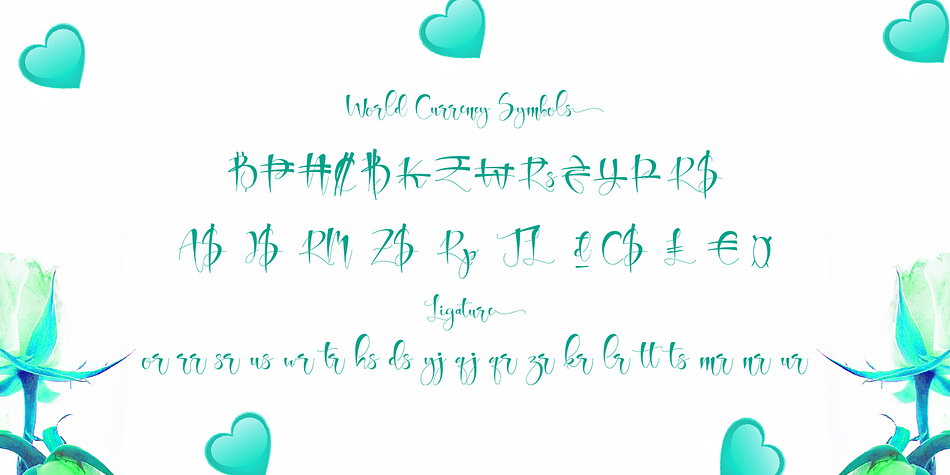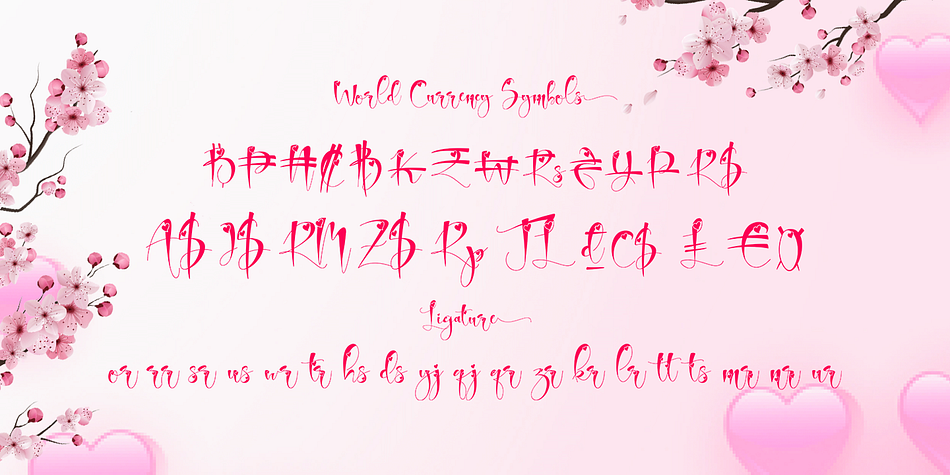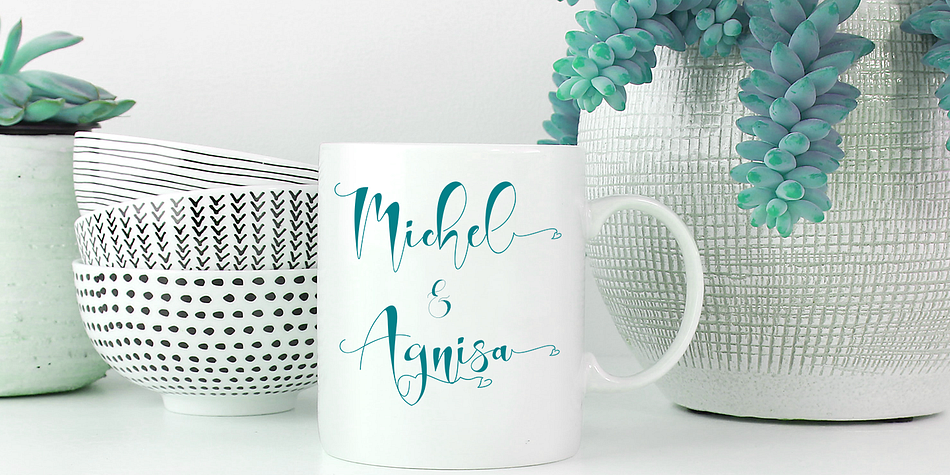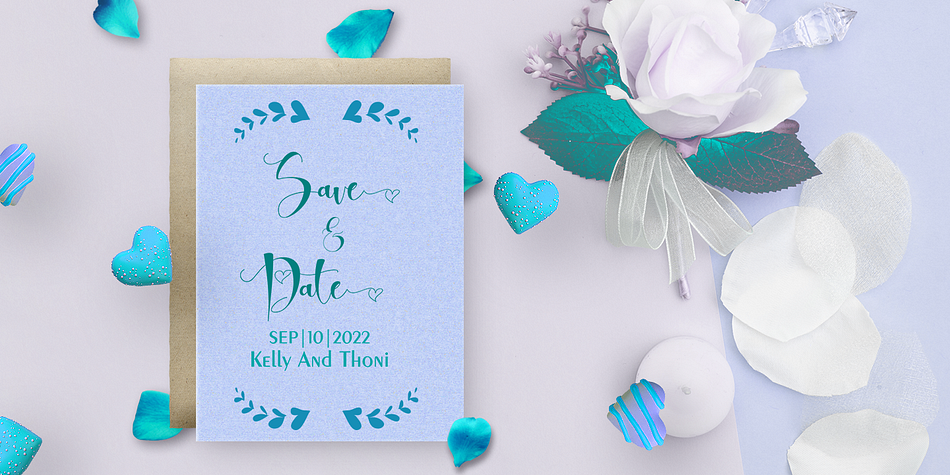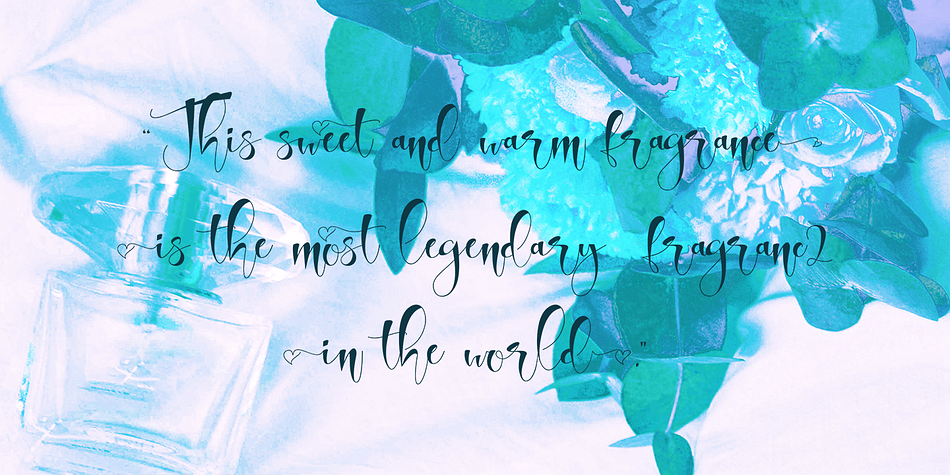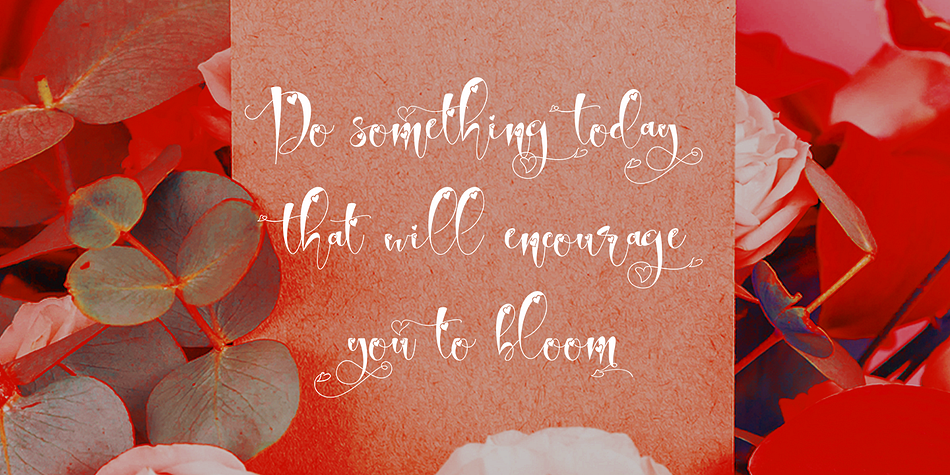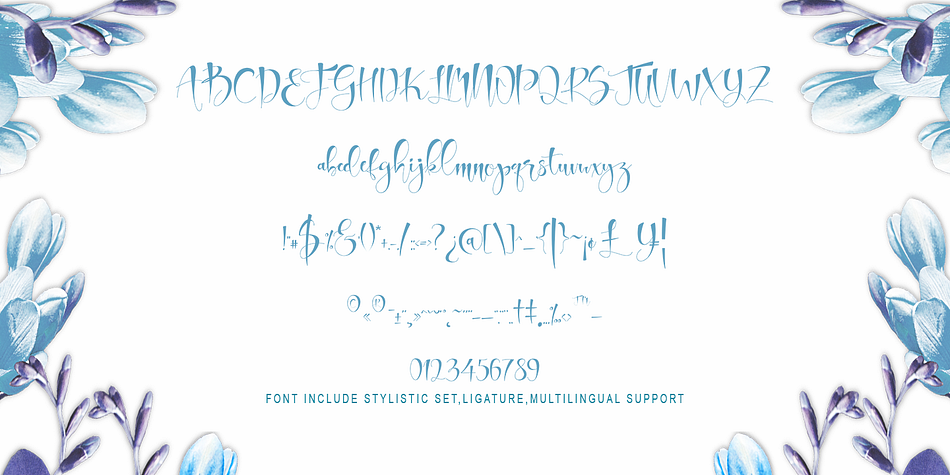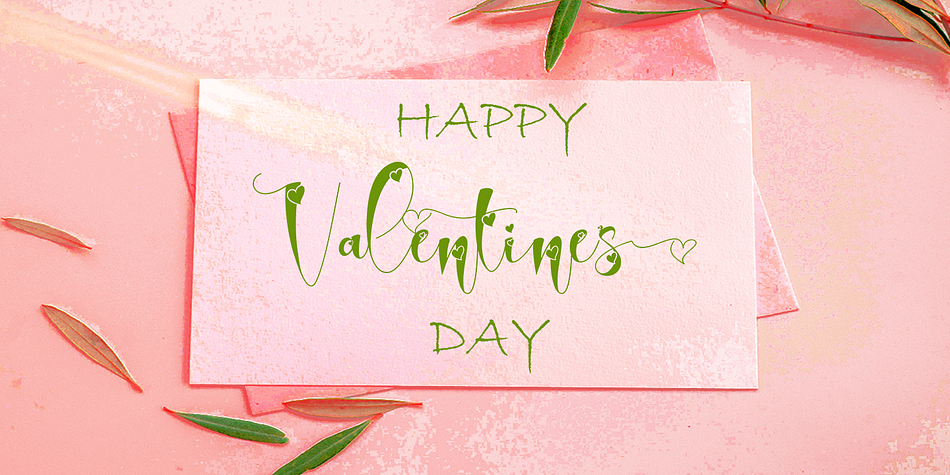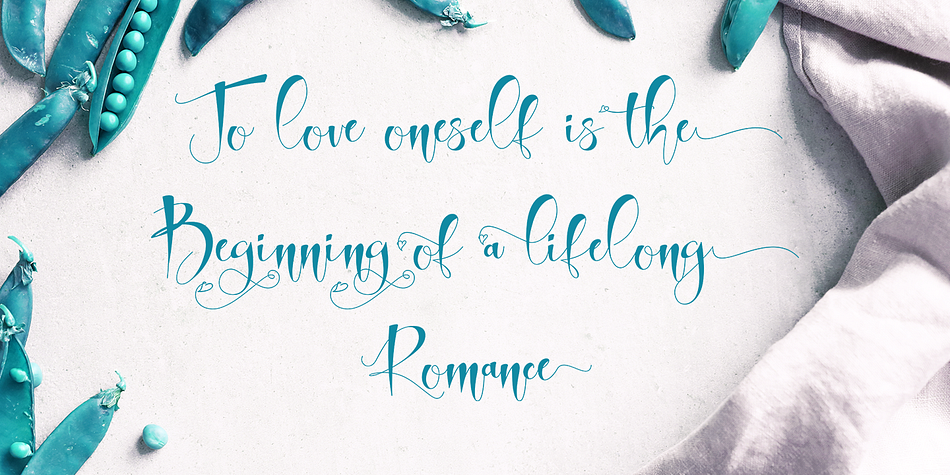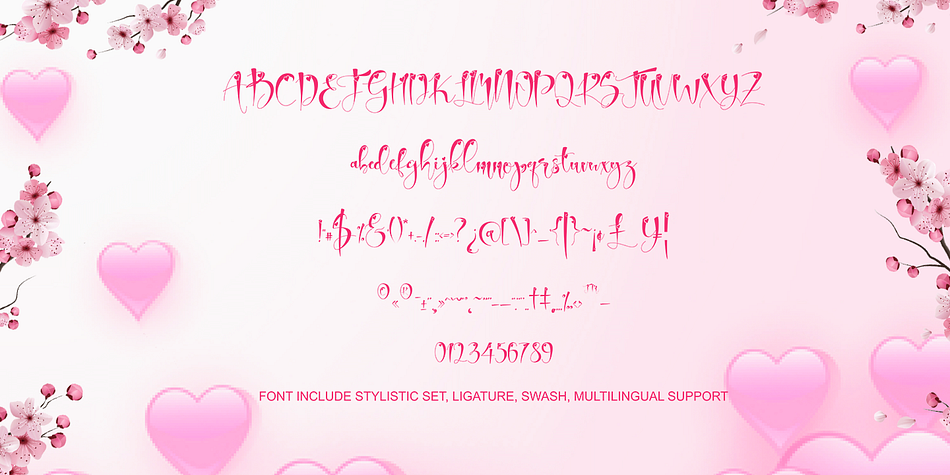
Akira Rosty
Akira Rosty is a modern calligraphy font family. This typeface has two styles and was published by Gatype.
Akira Rosty is a very unique handwriting, the shape is modern but pleasing to the eye and the style is very natural. This modern calligraphy font includes a modern Love font which can be varied with the Normal font, This font is designed to have the potential to take your every creative idea to the highest level! These designs are used for branding, web and editorial design, print, crafts, quotes, It’s great for logos, wedding invitations, romantic cards, labels, packaging, name spelling and more.
Akira Rosty includes OpenType style alternatives, ligatures, and International support for most Western Languages. To enable the OpenType Stylistic alternative,you need a program that supports Adobe Illustrator CS, Adobe Indesign & CorelDraw X6-X7, Microsoft Word 2010 or a later version.